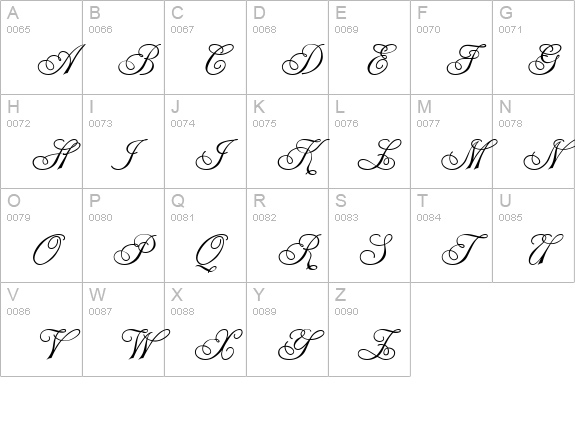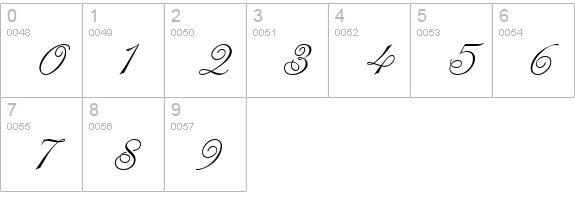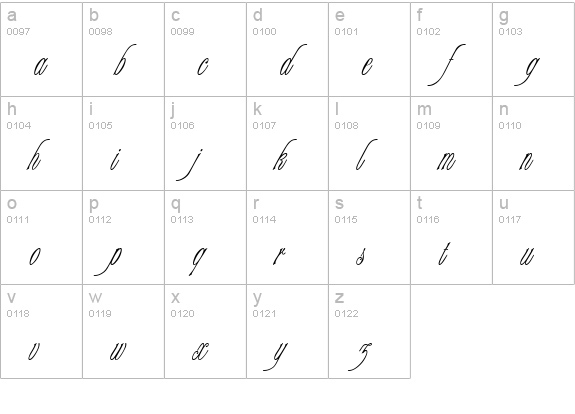
TR Alexei Copperplate Font Details
TR Alexei Copperplate is a classic and elegant font that exudes sophistication and timelessness. Its sleek lines and sharp angles make it perfect for a variety of design projects, from branding to editorial work. The font's unique blend of traditional copperplate script with a modern twist gives it a distinctive and refined look. What sets TR Alexei Copperplate apart is not only its aesthetic appeal but also its versatility. Whether you're creating a logo, wedding invitation, or a poster, this font will add a touch of elegance and sophistication to your design. The best part? TR Alexei Copperplate is available for free download at FontsMarket.com. So go ahead and elevate your designs with this exquisite font without breaking the bank. Download now and let TR Alexei Copperplate bring a touch of class to your next project.